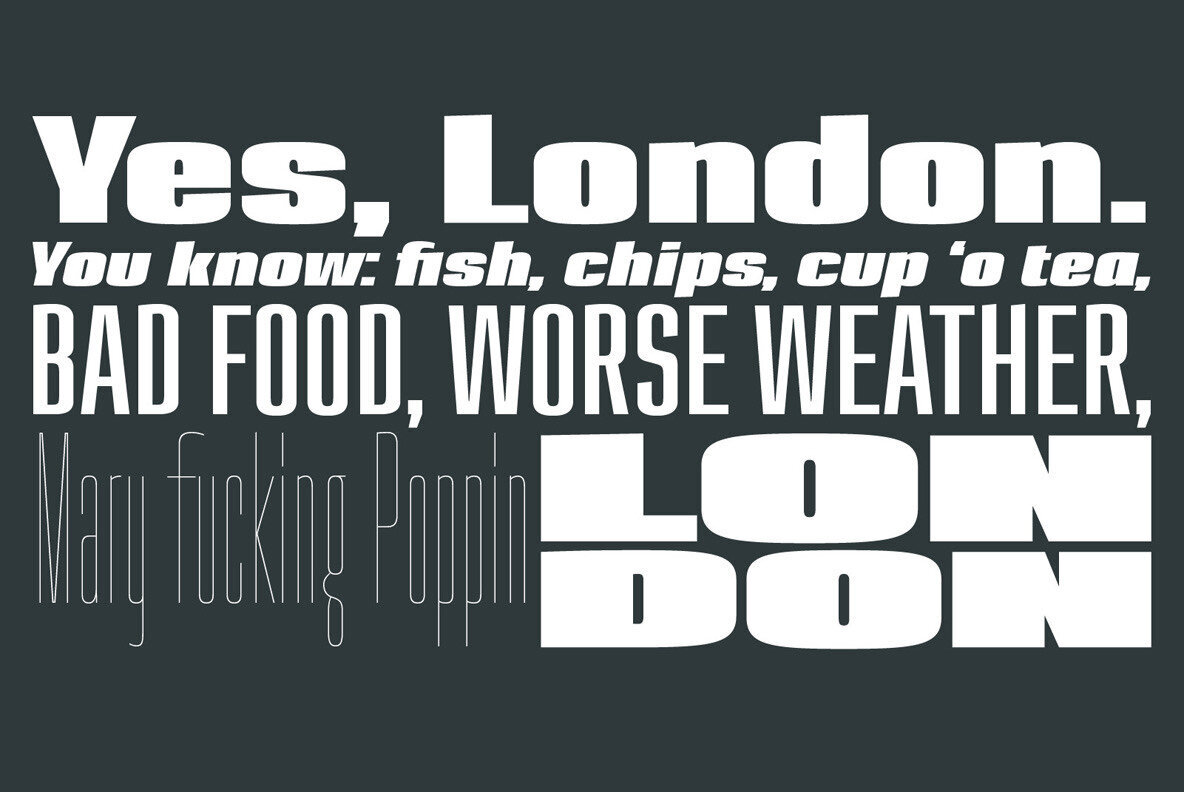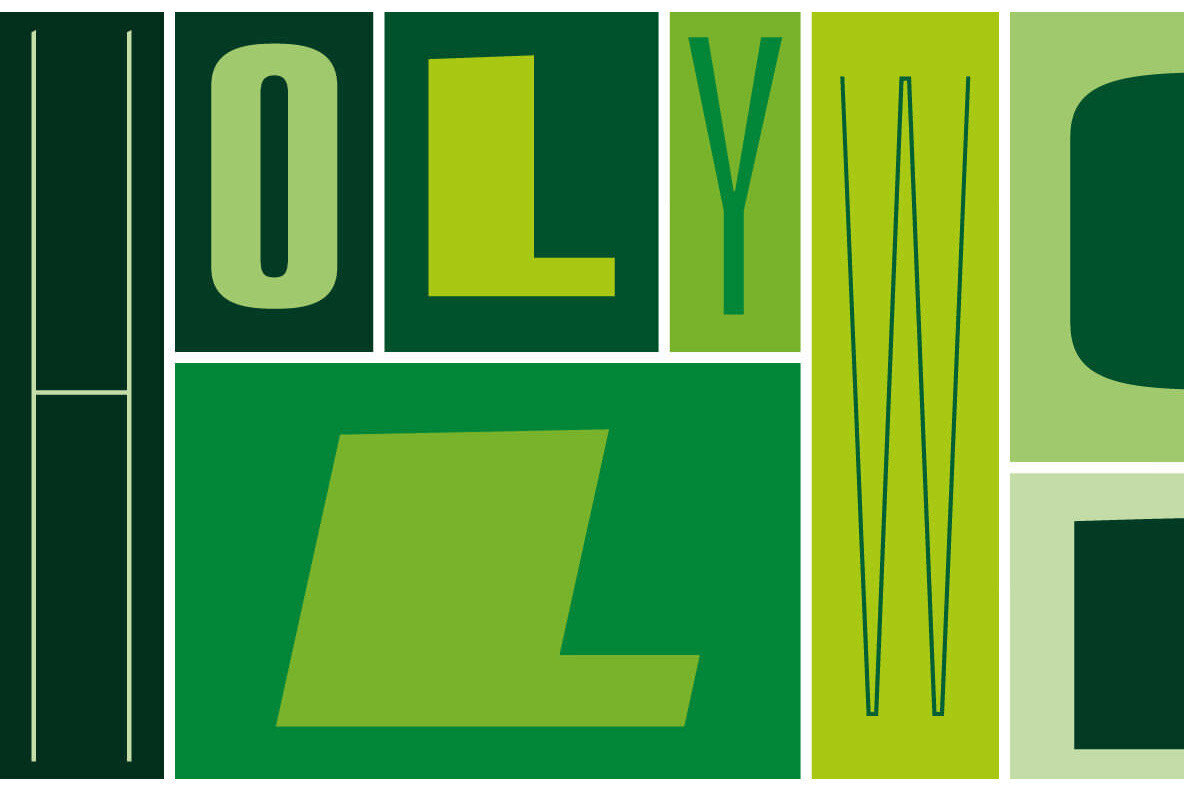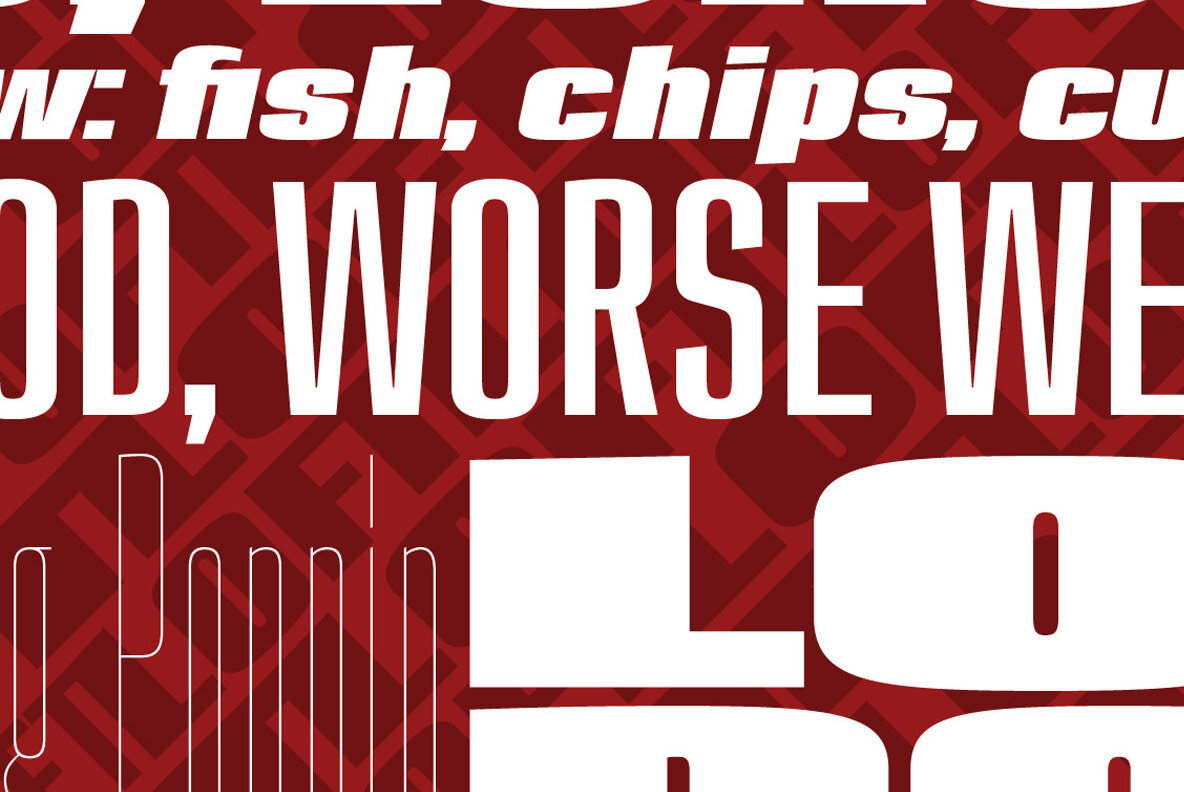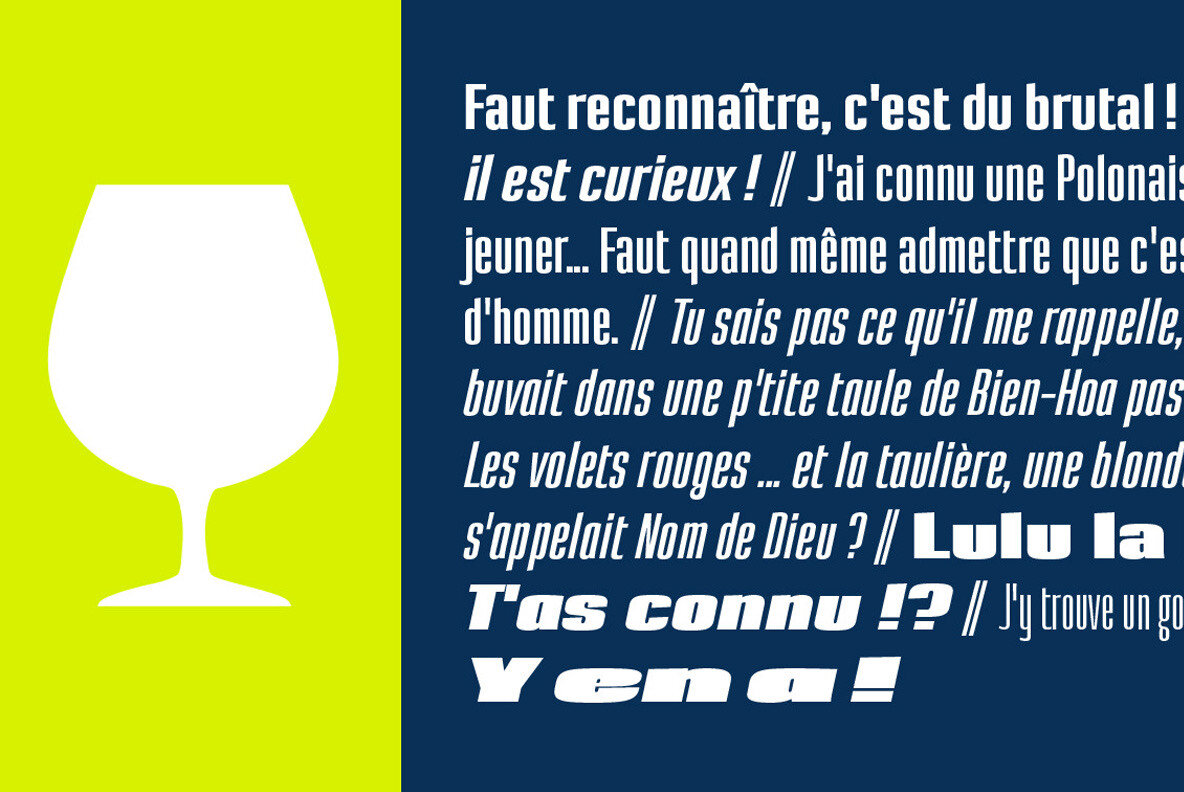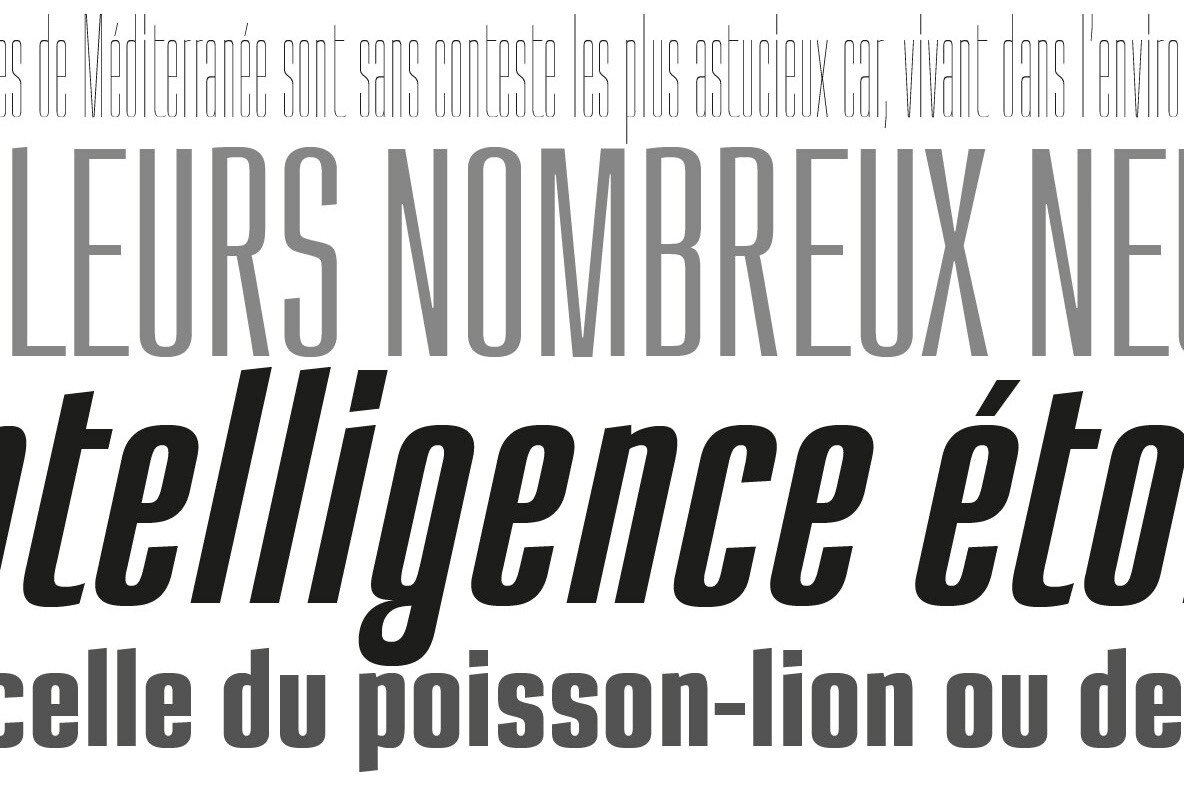
Loft Font
Loft represents a contemporary approach to type design, drawing inspiration from 19th-century fonts. While its structure is modern and modular, its sturdy character forms evoke an era when typefaces were tangible objects. Comprising seven weights, each accompanied by an italic variant, Loft maintains consistent counter widths across all styles. As the weights progress from Hairline to Mammoth, stroke thickness expands beyond the counters, creating a dynamic visual effect. In lighter weights, Loft optimizes space efficiency, gradually intensifying its impact as it progresses towards heavier designs. The comprehensive Loft typeface family stands out for its distinctiveness, adaptability, and enduring allure.